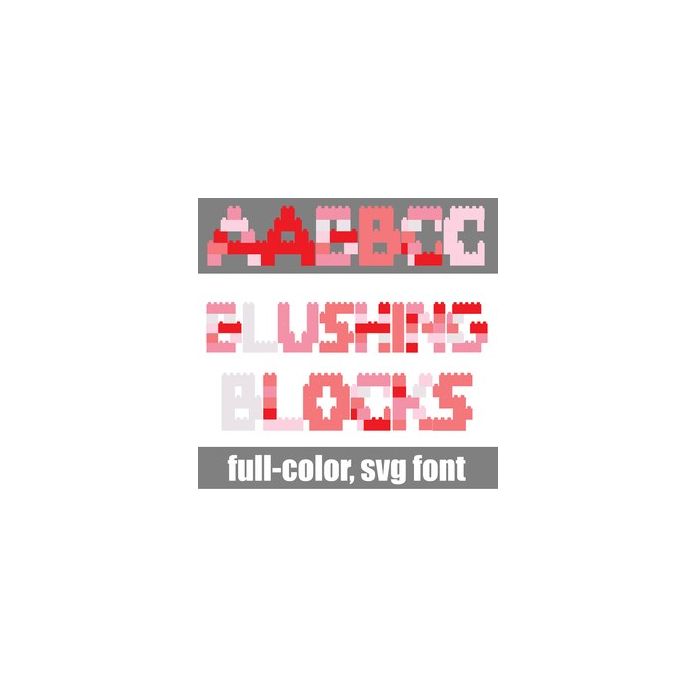
This full-color font features building blocks in a Valentines color palette. To type hearts, use the greater than and less than glyphs. There is a secondary color of each letter you can access through your system's or Silhouette's glyph map.